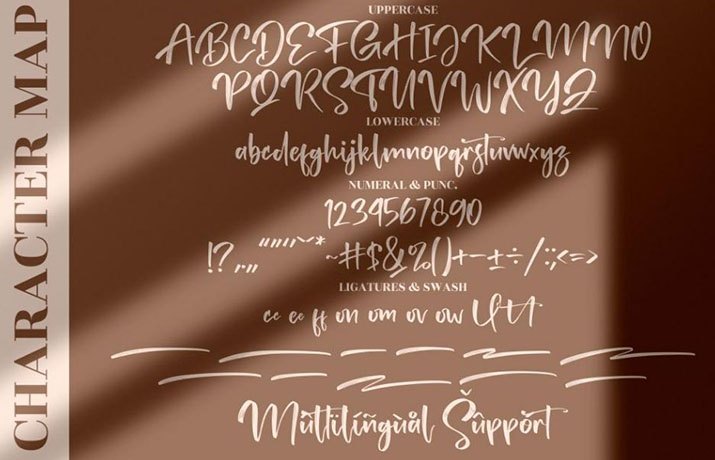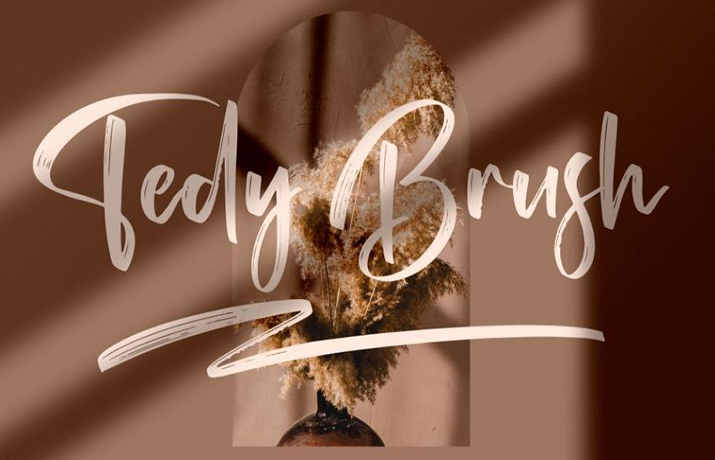
Tedy Brush Font is a script brush typeface that comes with elegance and a classy style. Perspectype Studio took charge of designing and sharing it first.
All the textures are created with the help of one hand with the designer using brushes. So it maintains a natural flow and feels like someone has digitally converted his handwriting.
Its delicate and flowing letterforms make it ideal for various works including headings, body text, social media posters, Instagram photos, YouTube thumbnails, logos, and invitations.
“[Tedy Brush typeface is available in two styles along with both Open Type and True Type features. This font includes 254 glyphs and 9 ligatures. Moreover, it also supports 66 global languages]”.
- Designers widely use this chic typeface for a variety of related design applications, including dynamic poster designs, banner designs, labeling, brochure layouts, watermarks on photographs, shopping bags, social media posters, signs, labels, banners, headers, cards, birthday cards, magazines, shopping bags, stationery, and kid’s elements.
This font supports 66 different languages.